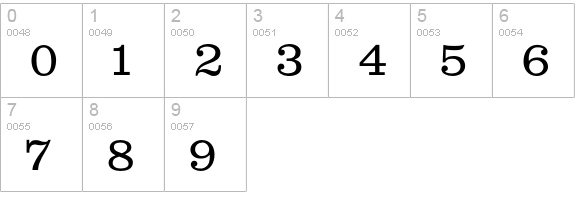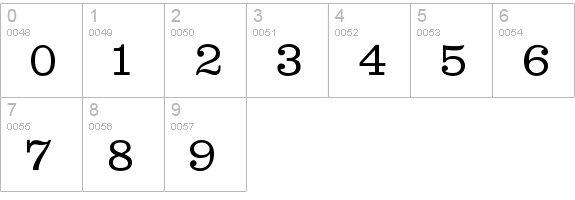
Introducing ClarionBook font - a versatile and elegant typeface perfect for a wide range of design projects. With its clean lines and classic appearance, ClarionBook exudes sophistication and professionalism. Whether you're designing a logo, creating a website, or crafting a printed piece, this font is sure to make a statement. What sets ClarionBook apart is not just its timeless design, but also its accessibility. This high-quality font is available for free download at FontsMarket.com, making it easy for designers of all levels to access and use in their projects. Embrace the beauty and versatility of ClarionBook font today and elevate your designs to new heights.